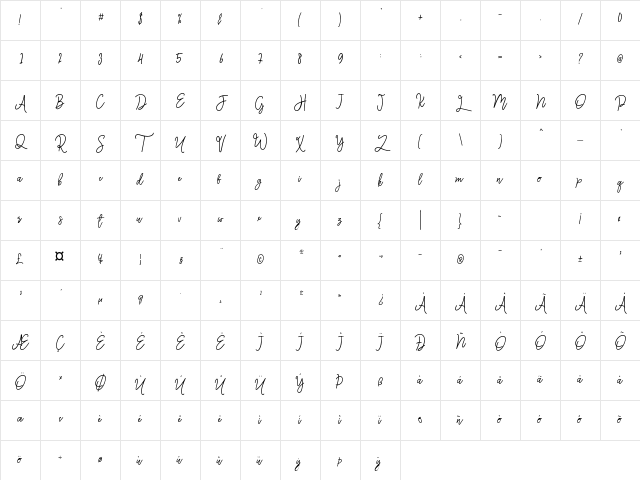
Monalisa Monoline Script Regular
Foundry: Sizimon
Designer: Faisal Tanjung
Design Context for Monalisa Monoline Script
Monalisa Monoline Script flows with the natural rhythm of handwritten lettering, making it ideal for designs that call for warmth and personal expression.
Font Pairing: Combine Monalisa Monoline Script with a simple geometric sans for maximum contrast - the tension between flowing curves and clean structure is a classic typographic pairing.
Pro Tip: Use Monalisa Monoline Script for short runs of text - names, titles, or taglines. Extended body copy in script faces tires the eye quickly.